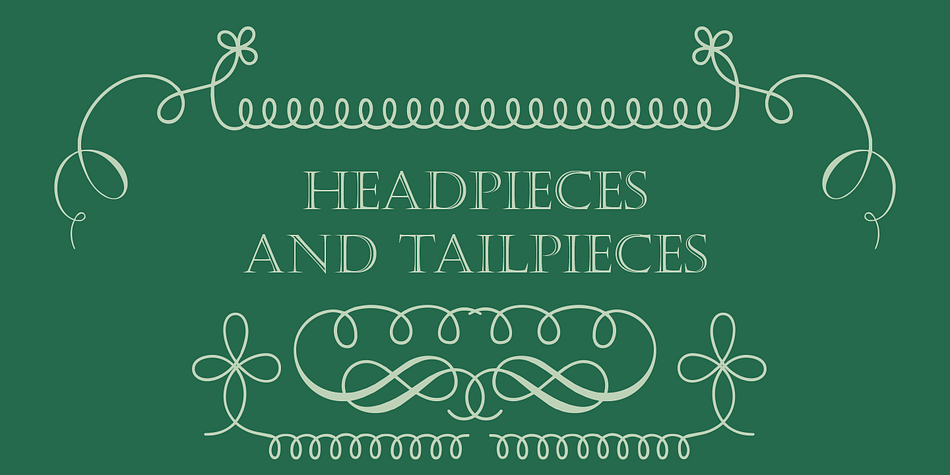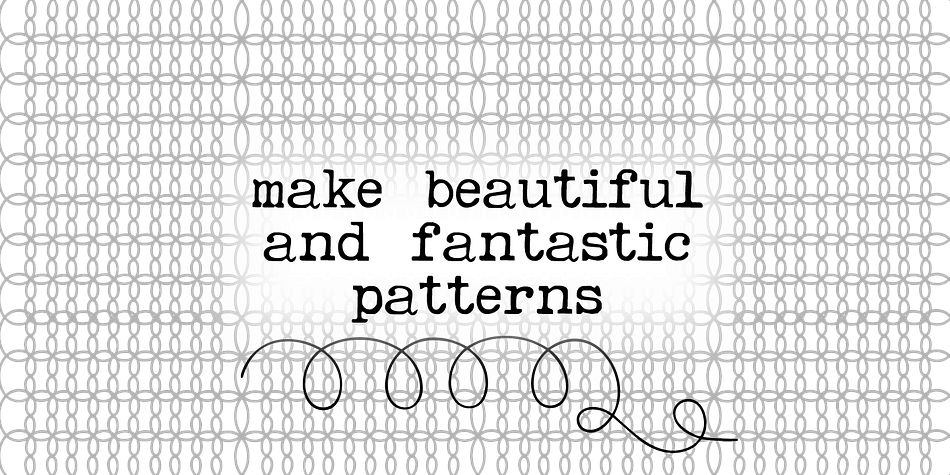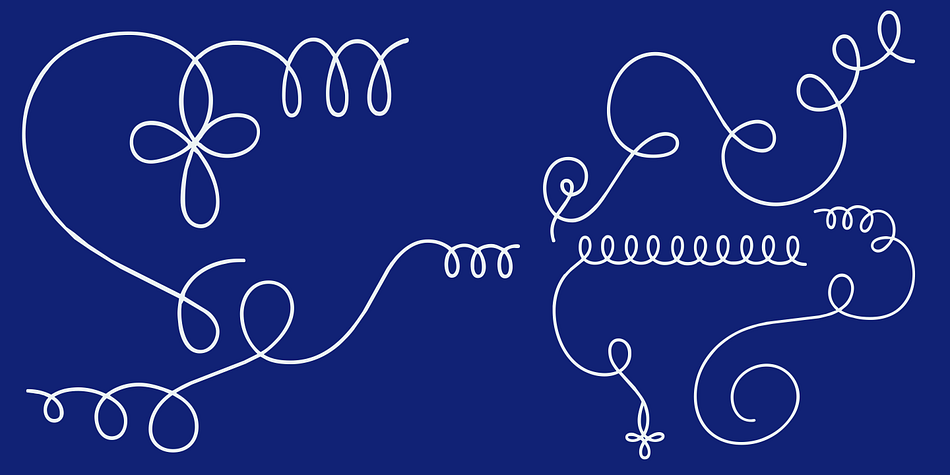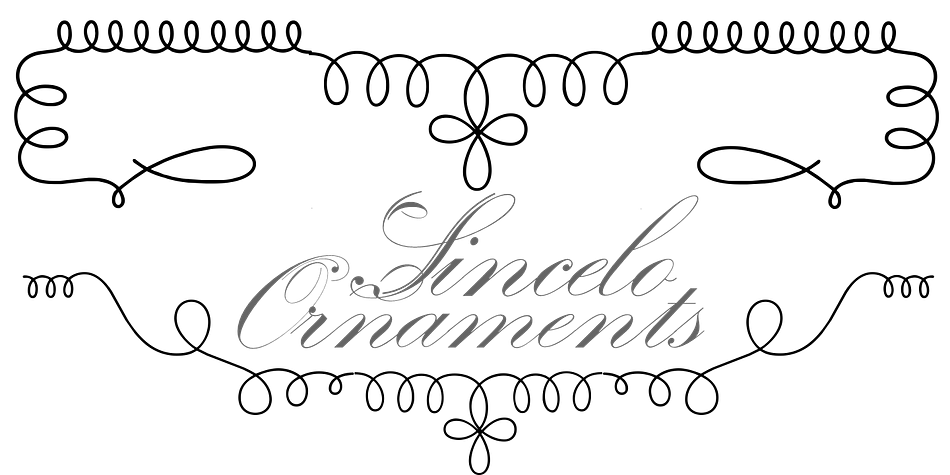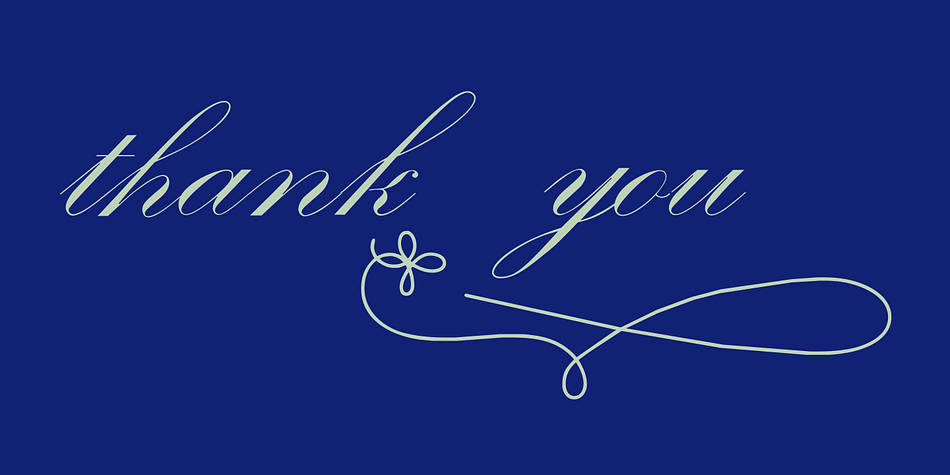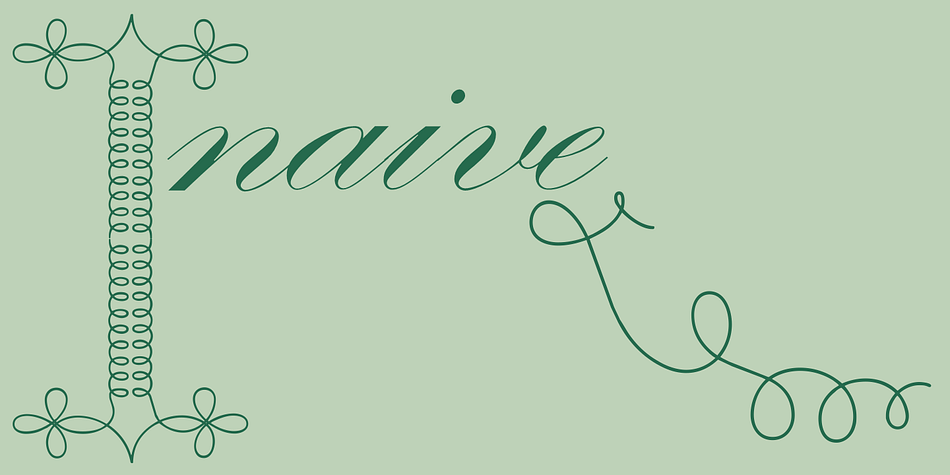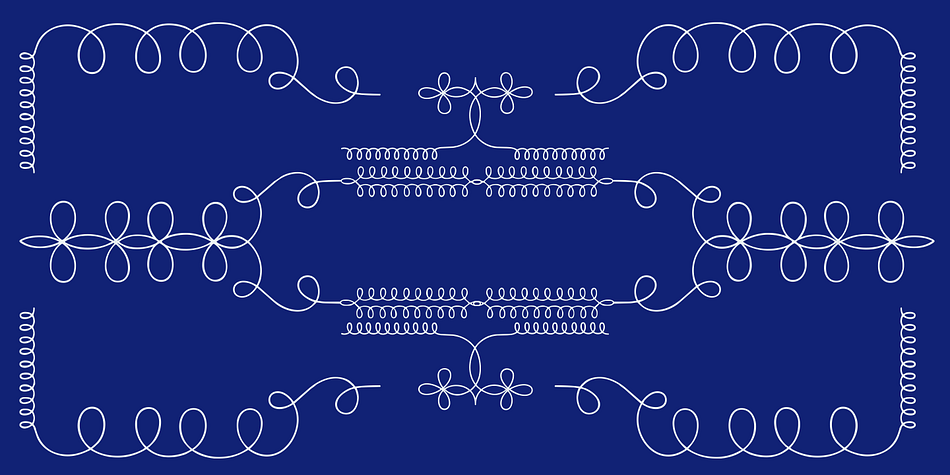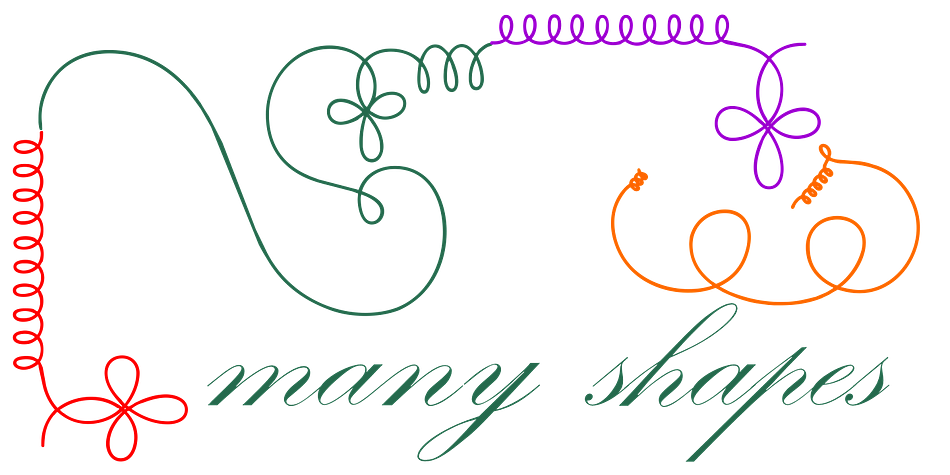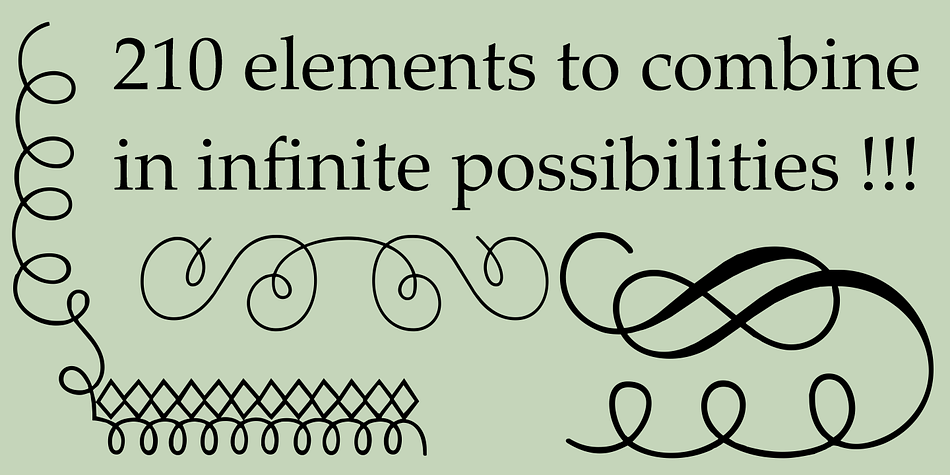
Sincelo Ornaments is a dingbat font published by Intellecta Design.
Sincelo Ornaments is a well crafted display font with over 200 gliphs to create intrincate and soft artworks.